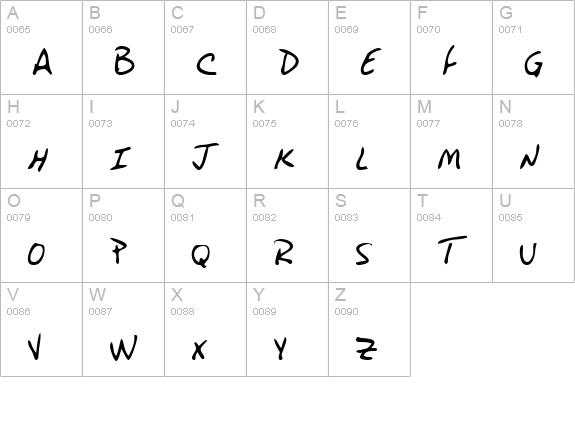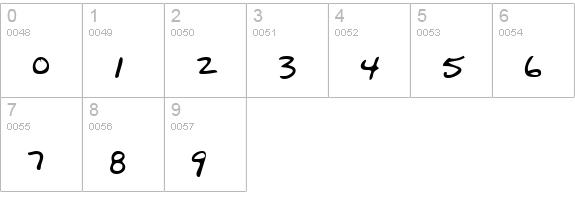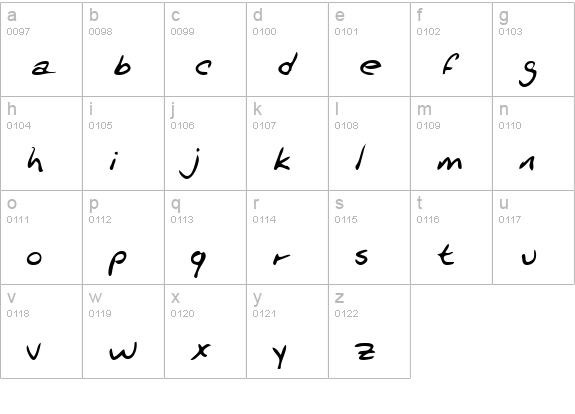
PrincesHand Regular Font Details
PrincesHand Regular is the standard, neutral variant in the PrincesHand typeface family \xE2\x80\x94 well suited to general body text, paragraphs, and standard typographic work.
PrincesHand Regular font is a charming and elegant typeface that exudes sophistication and grace. Its delicate strokes and graceful curves make it perfect for adding a touch of refinement to any design project. With its timeless appeal, PrincesHand Regular font is versatile and can be used for a variety of applications, from wedding invitations to branding materials. What sets PrincesHand Regular font apart is that it is available for free download at FontsMarket.com. This means that you can easily access this beautiful font without any cost, making it a valuable addition to your font collection. Whether you are a designer looking to elevate your projects or someone in need of a stylish typeface for personal use, PrincesHand Regular font is a fantastic choice that won't break the bank. Don't miss out on the opportunity to enhance your designs with the elegance of PrincesHand Regular font. Download it for free today at FontsMarket.com and elevate your creative projects with this exquisite typeface.